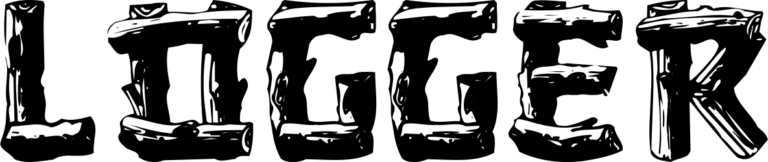
Alone On Earth Font
If you have a project like cartoons, flyers, posters, and website headers that you need to create a childish and cartoonish vibe then we suggest you look in the cartoon font category. From that category, we can offer you Alone On Earth.
This font has an awesome collection of characters that contains the uppercase of the alphabet, the numbers, and the punctuation marks but you won’t find any lowercase.